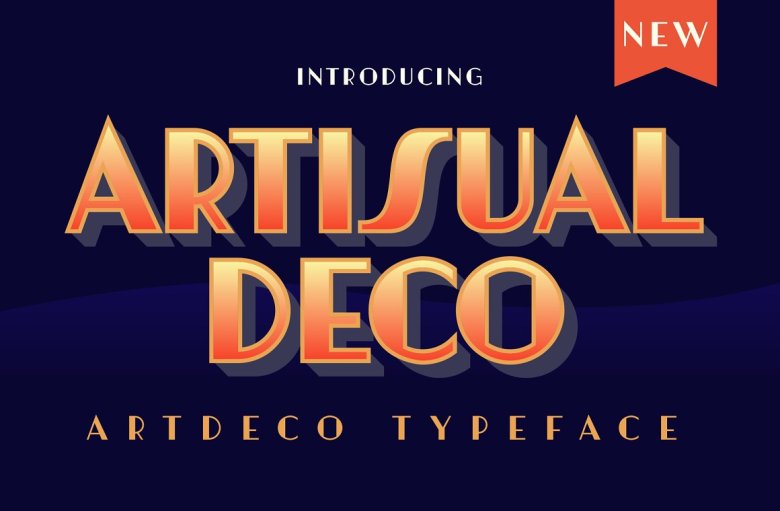
Artisual Deco Font
Artisual Deco Display Font is a vintage style small caps serif font that works great for logos, packaging, branding, menus, advertising, and posters. From large title headlines to small detailed text, this font stays legible through a wide range of point sizes. This font family is available with 3 versions you can see it right here!
Artisual Deco Display Font